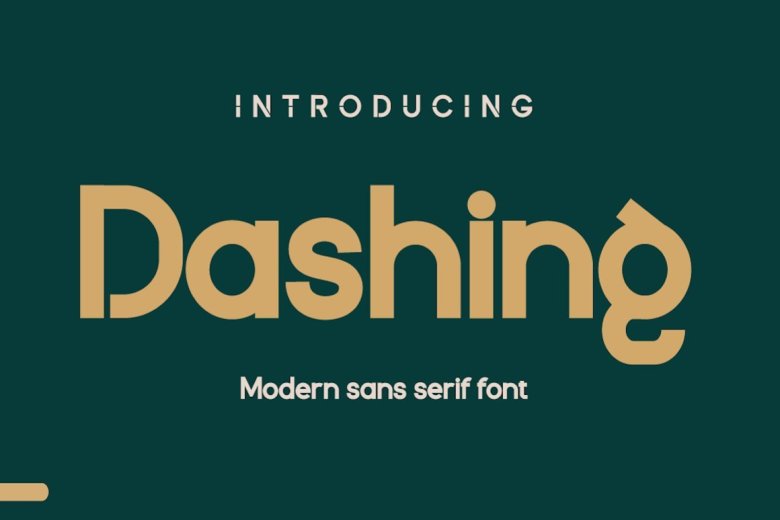
Dashing Font
Introducing Dashing Sans Serif Font. Beautiful geometric font for writing titles and sentences that are comfortable to see when reading, a simple but elegant impression makes this font suitable for you to use for various needs of your design projects. smooth, casual and formal.
This font is an alternate character in each letter, especially uppercase letters, which you can apply in writing to create a new and captivating look in writing names or trademarks, and so on.
Dashing Sans Serif Font is perfect as text with displays for a wide variety of branding, advertising, posters, banners, packaging, news headlines, magazines, websites, logo design, and more.
Dashing Sans Serif Font